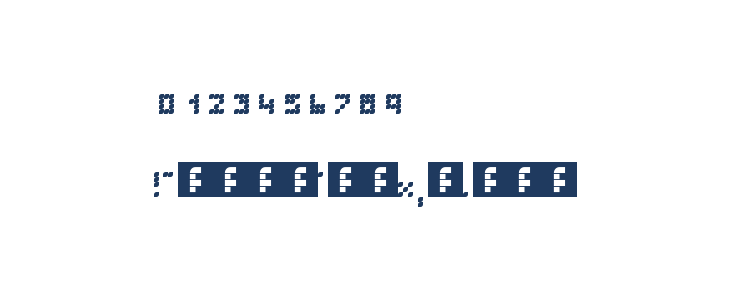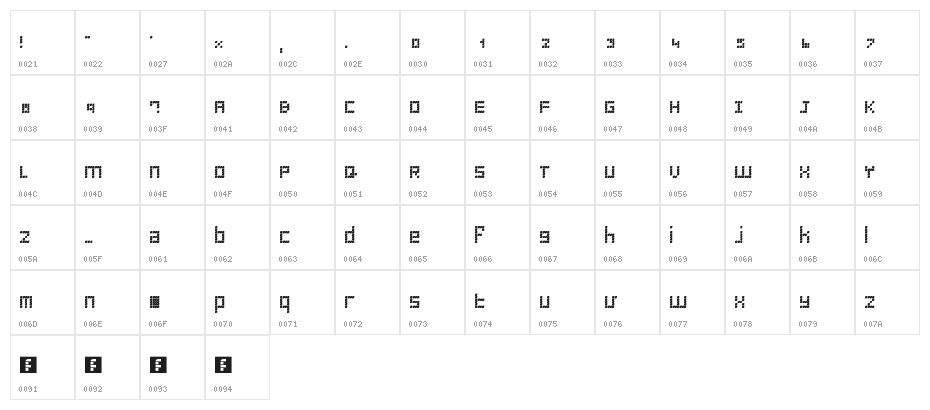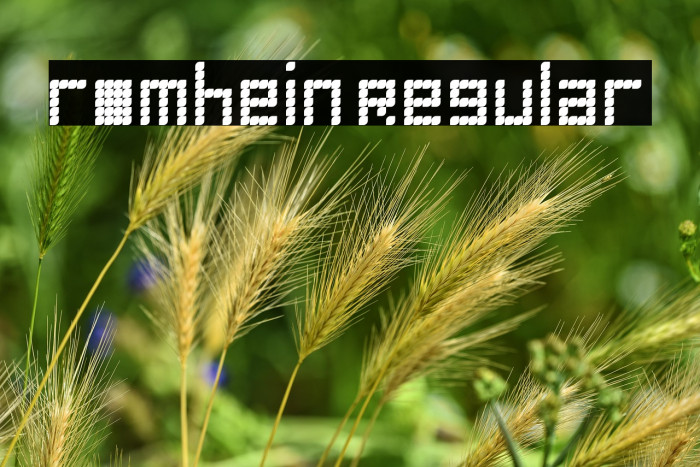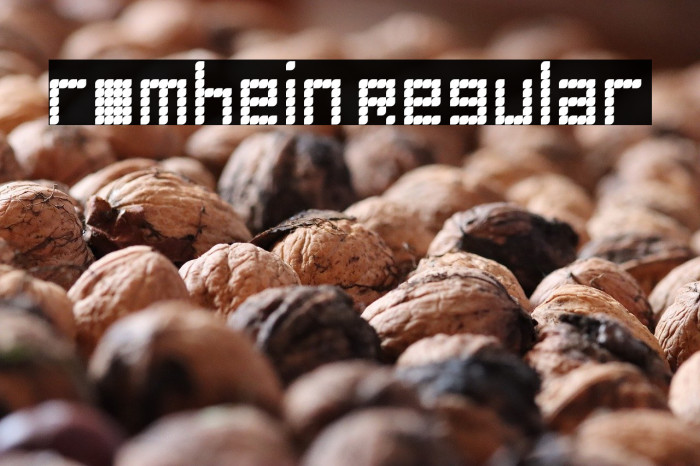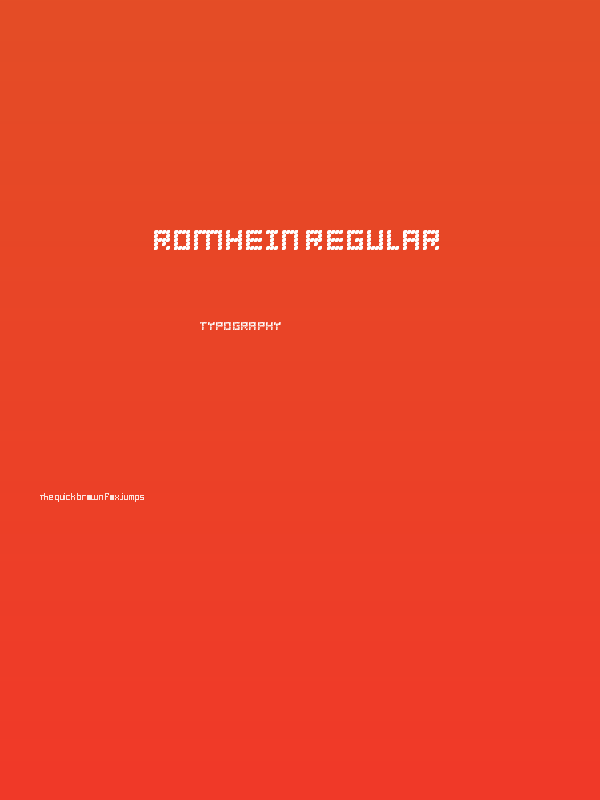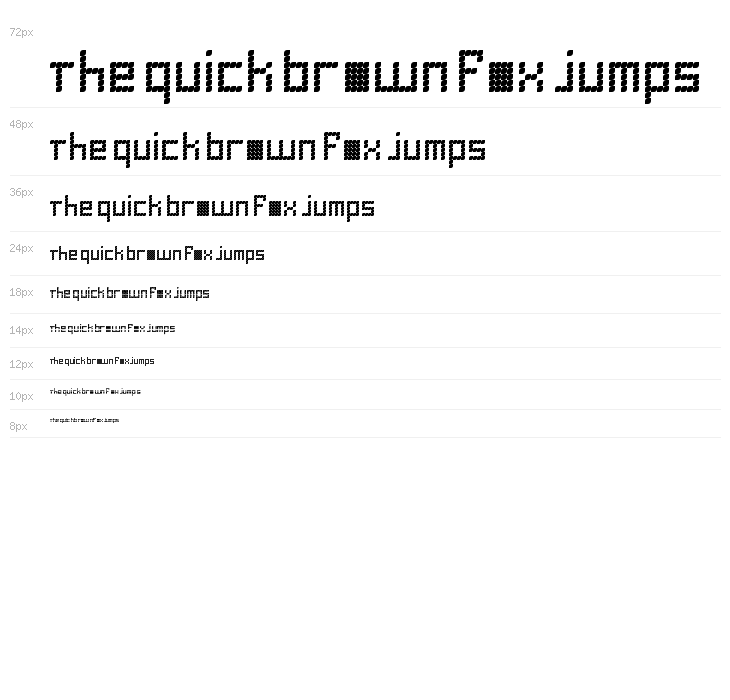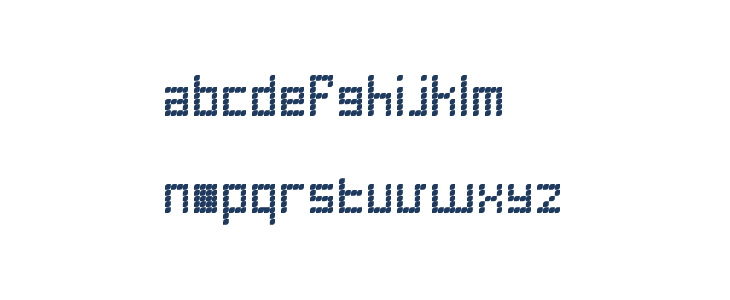
romhein Regular Font
romhein Regular Description
This font features a unique dot matrix design, where each character is composed of small, evenly spaced dots. The geometric structure gives it a digital, retro appearance reminiscent of early LED displays or dot matrix printers. The uppercase and lowercase letters maintain a consistent height, contributing to a uniform look. Numbers and special characters follow the same dot pattern, ensuring a cohesive style throughout. The font's playful yet structured design makes it suitable for projects that require a modern, tech-inspired aesthetic.
| Proposed Projects | Ideal for digital displays, retro-themed designs, tech branding, and creative posters. |